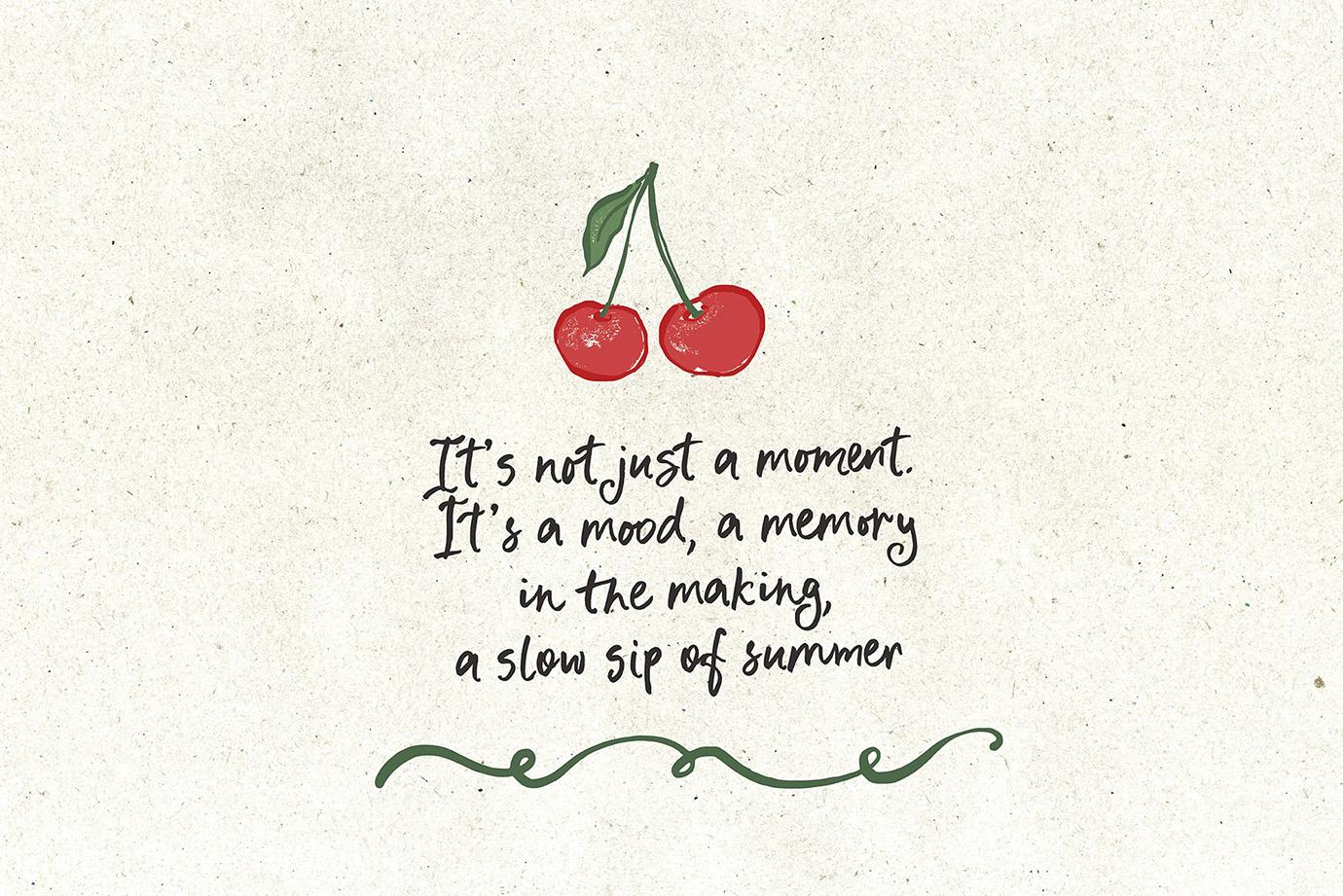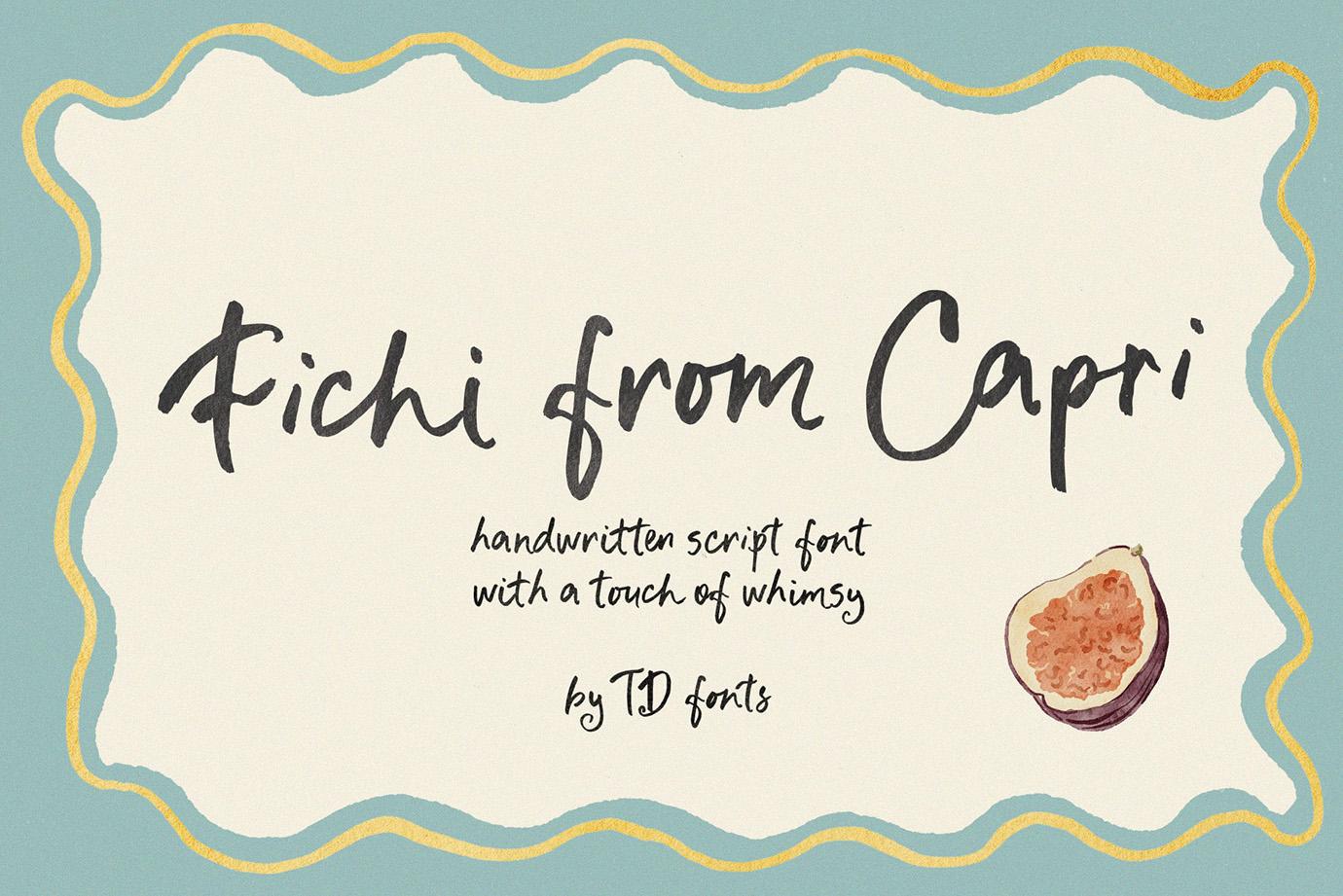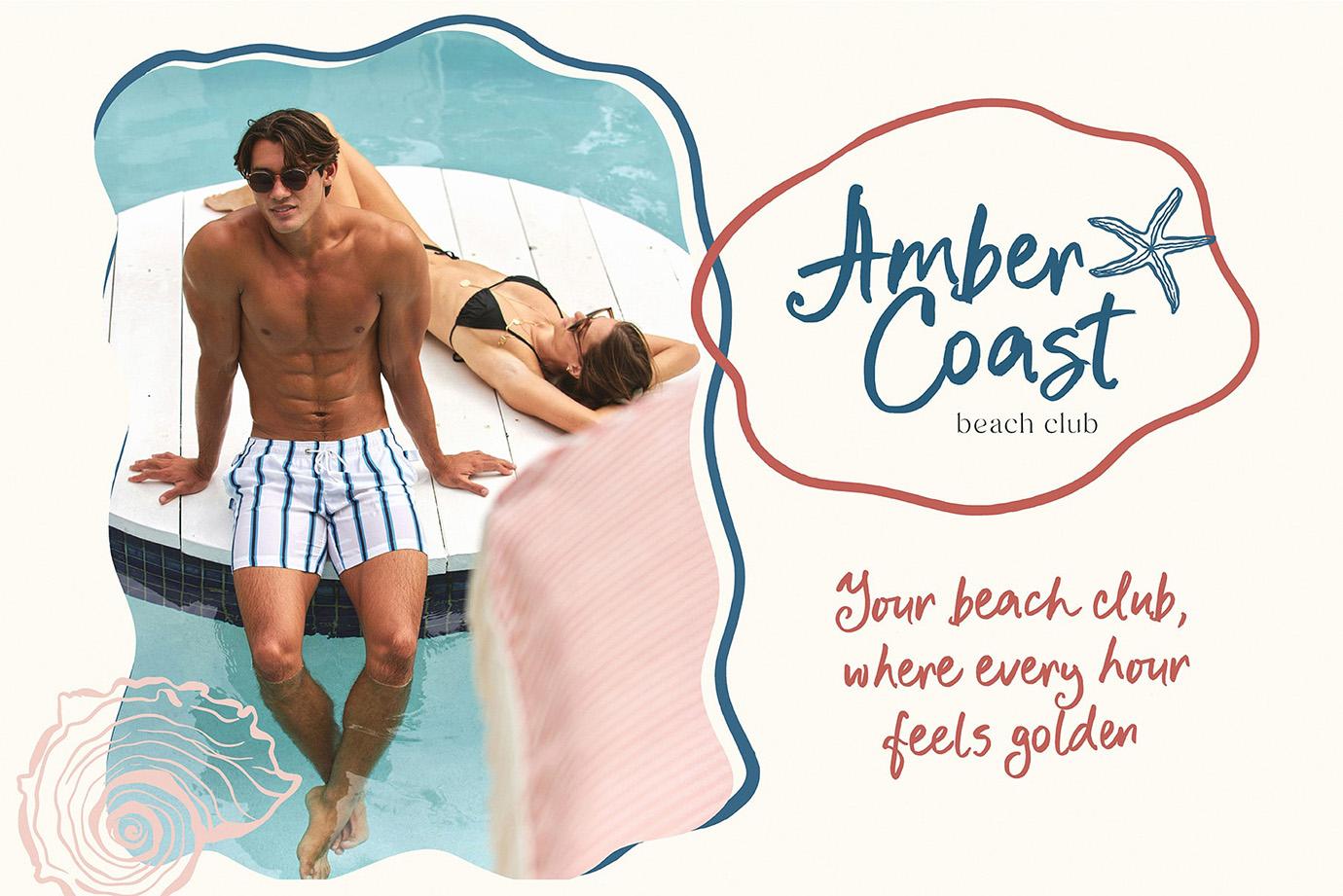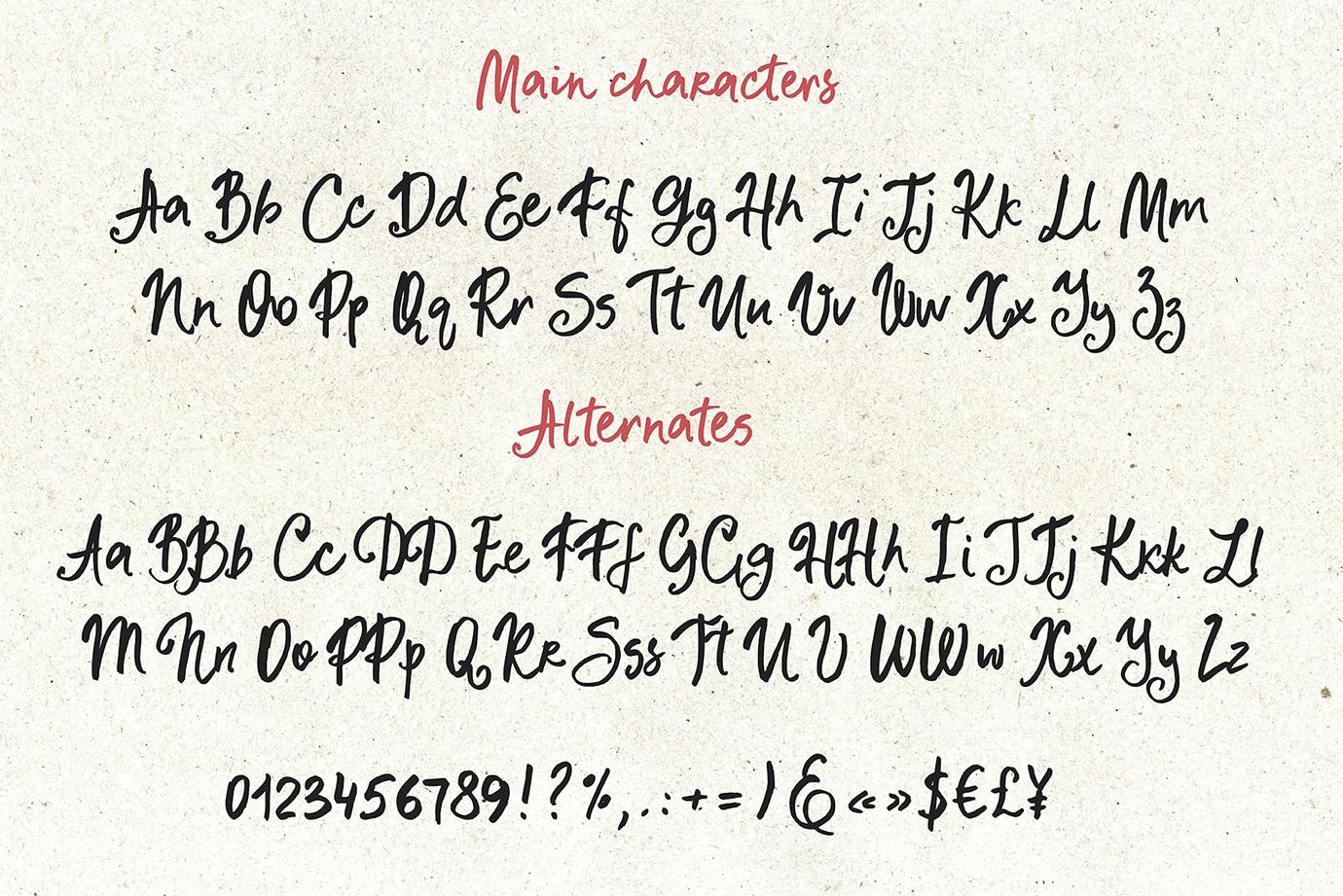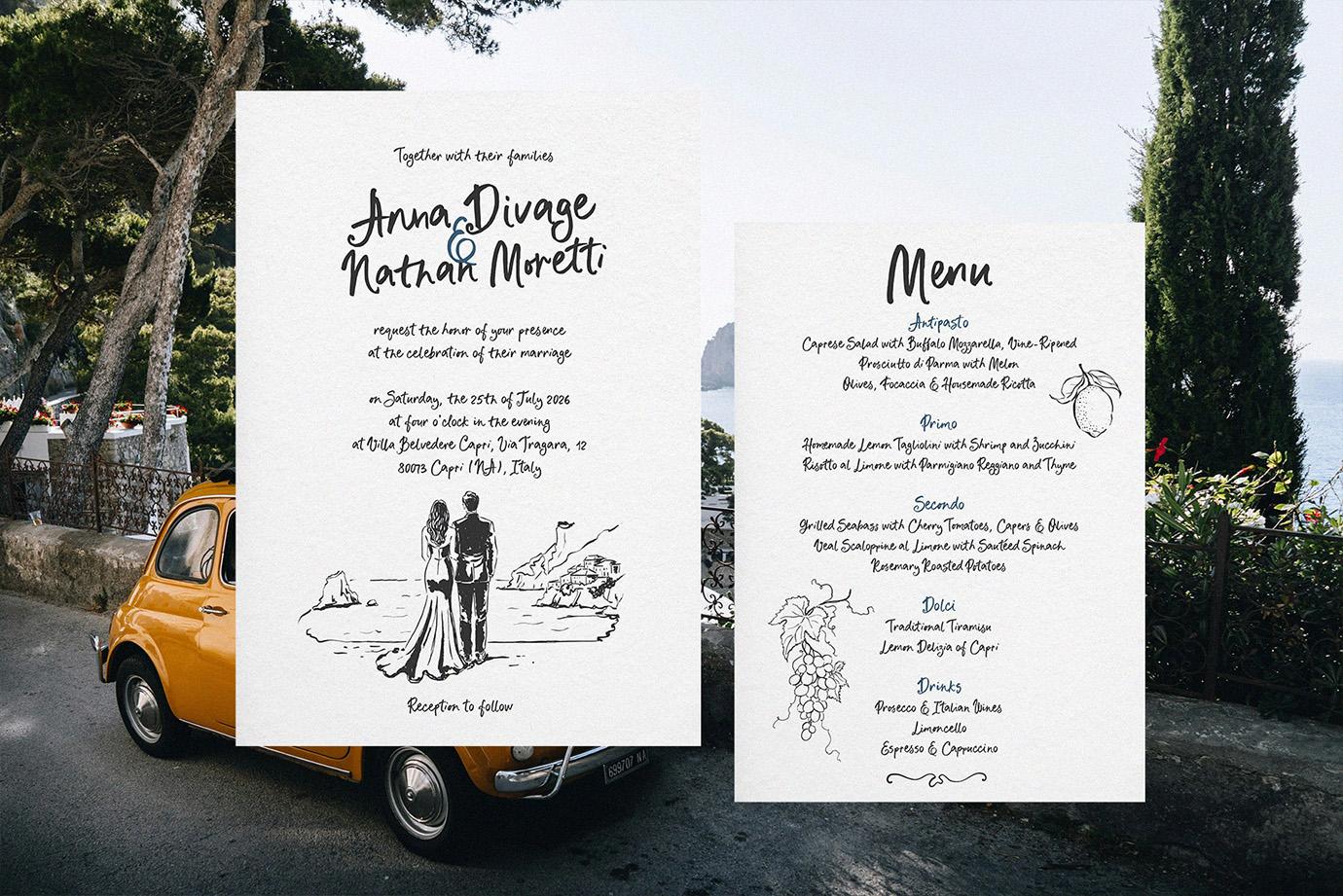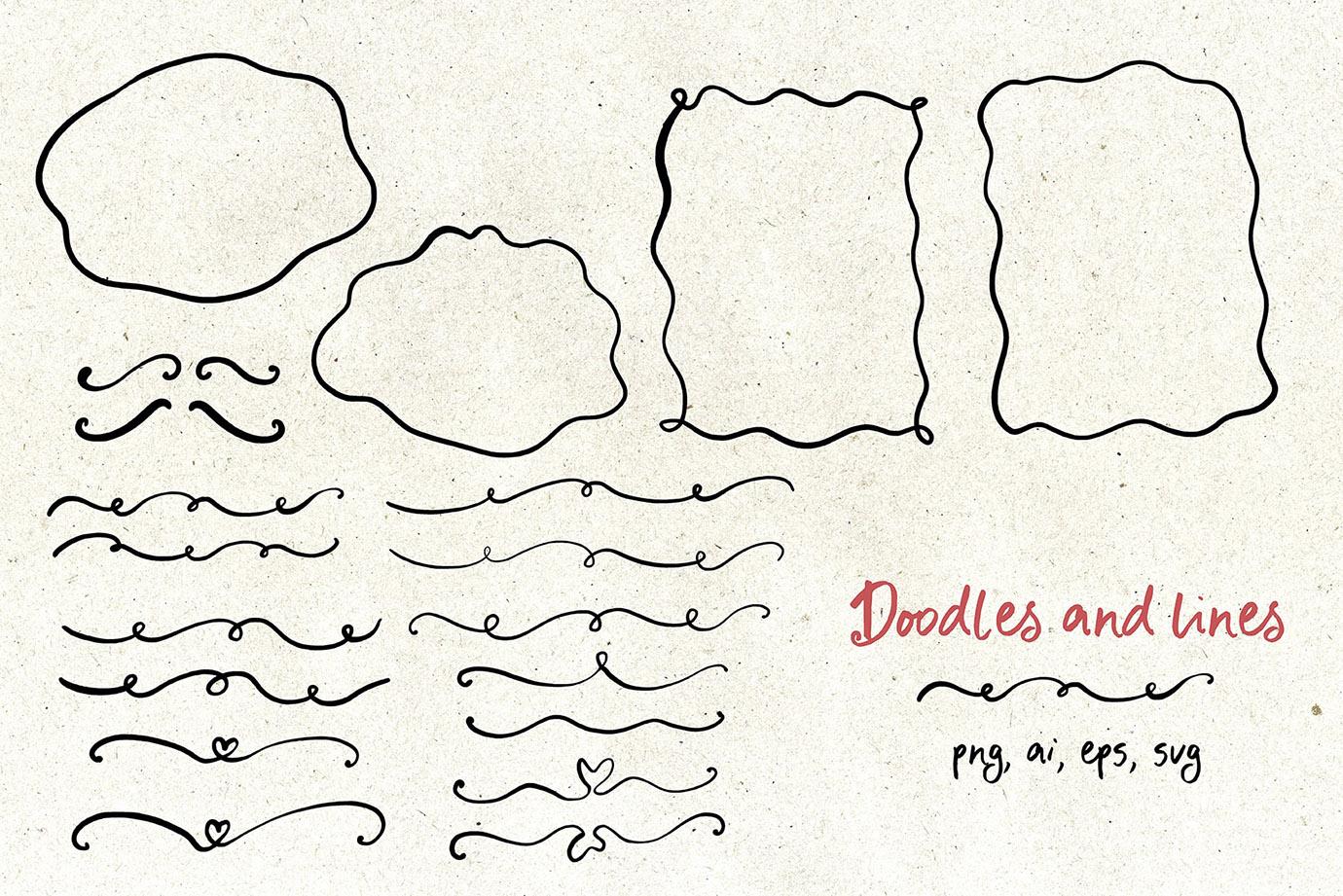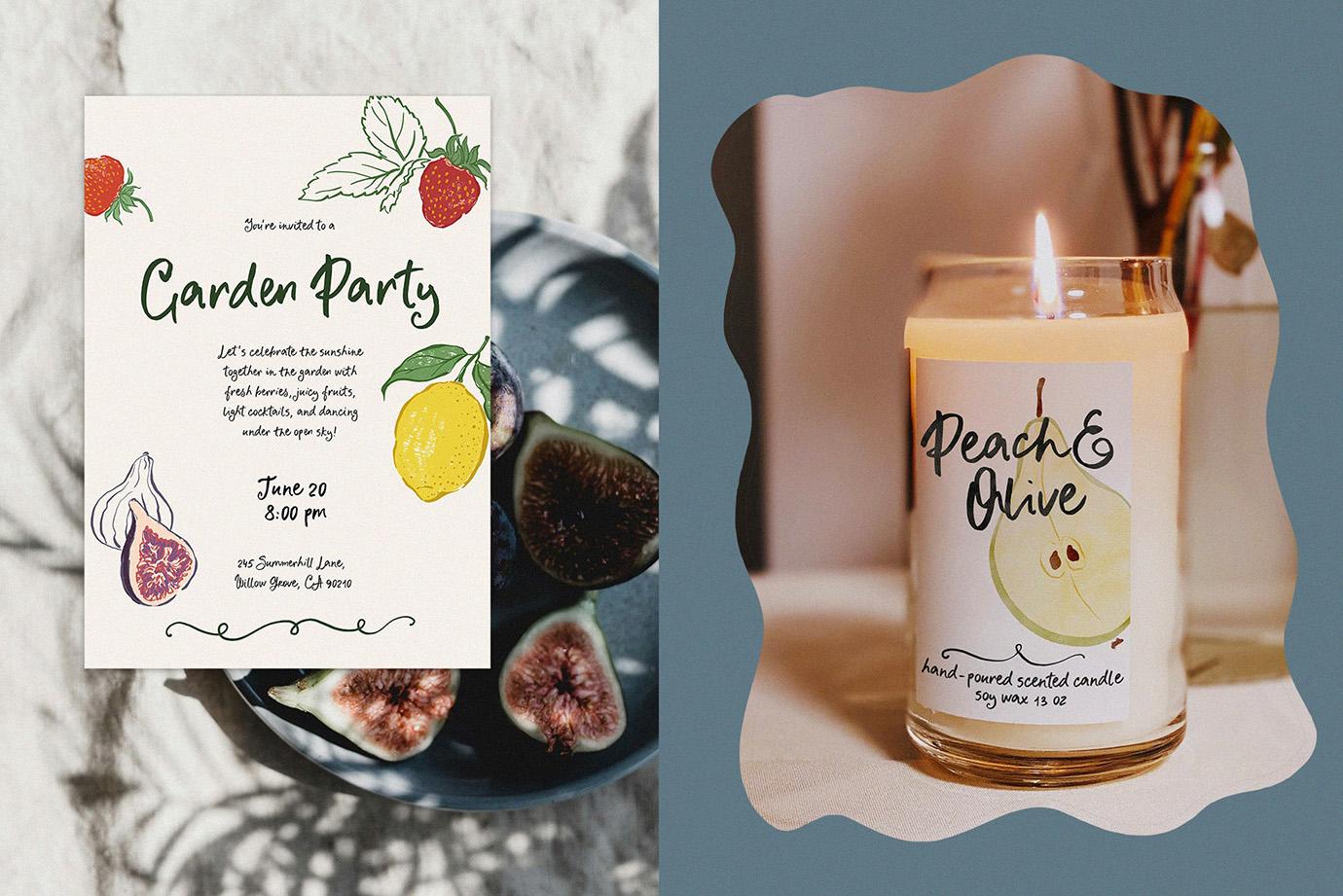
Fichi from Capri is a handwritten script font with a carefree spirit and a hint of whimsy.
I created it by hand, on paper — it has a little bounce, leans this way and that, and that’s exactly what makes it feel so natural and full of life. This font brings warmth, soul, and a relaxed holiday mood to whatever you’re working on.
It includes a lovely selection of alternates and ligatures, so your lettering can look playful, varied, and organic every time.
Perfect for branding, greeting cards, invitations, whimsical prints and posters, modern wedding design, illustrations — or any project that needs a cozy, perfectly imperfect touch of charm.
Fichi from Capri is multilingual and ready to add its sunshine to your designs, wherever you are in the world.